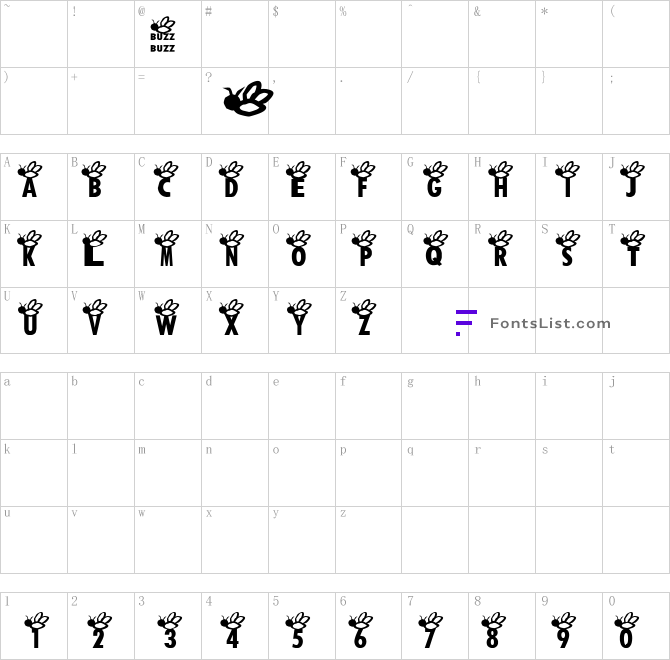
- Font Name:AEZ buzz buzz
AEZ-buzz-buzz.ttf is a very beautiful artistic font, AEZ-buzz-buzz.ttf is widely used in the design and printing of various books and pictures,AEZ-buzz-buzz.ttf has a strong visual impact,AEZ-buzz-buzz.ttf is a commonly used font in newspapers, magazines and books, and is used in posters, e-commerce Poster design, store design, logo design, font design and other fields.AEZ-buzz-buzz.